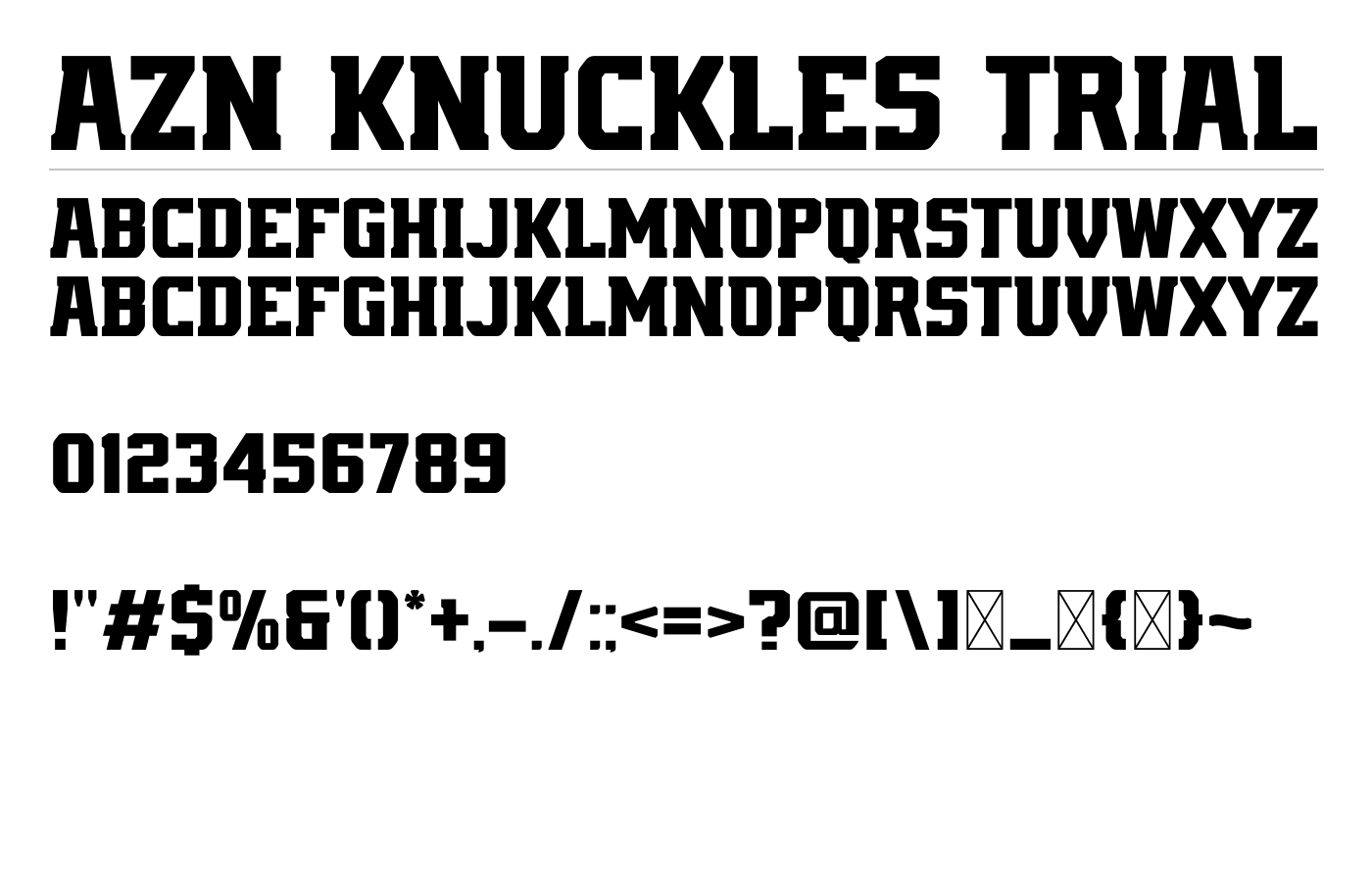
AZN Knuckles Trial is a bold, condensed slab serif font with a strong, geometric structure and high stroke contrast. Its all-uppercase design and thick, blocky serifs give it a rugged, industrial feel, making it perfect for impactful headlines, branding, and posters that need a powerful, assertive presence. This font suits projects looking to convey strength, confidence, and a vintage athletic vibe.
AZN Knuckles Trial Font
About AZN Knuckles Trial Font
| Font family | AZN Knuckles Trial Font |
| Designer | AthayaDZN |